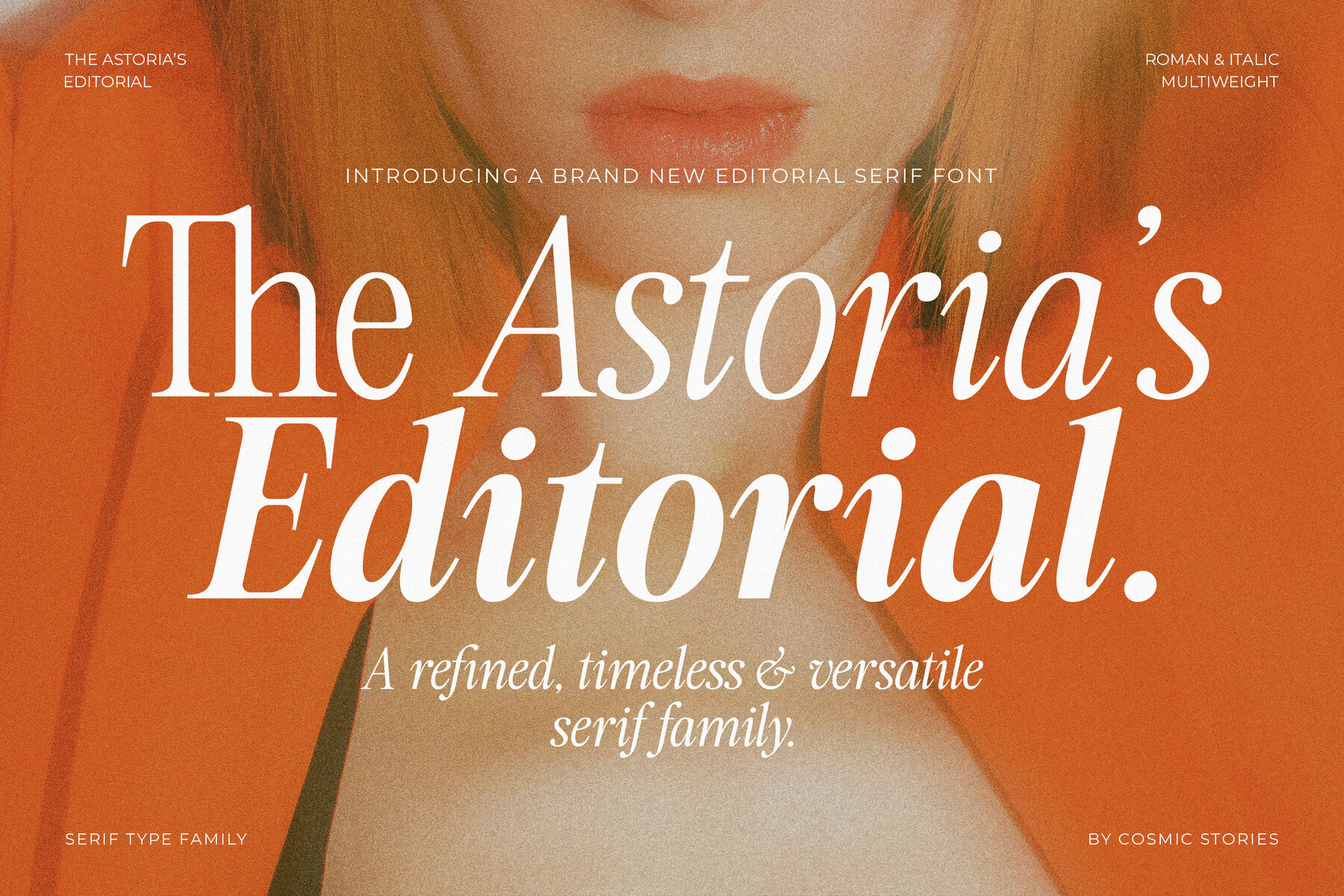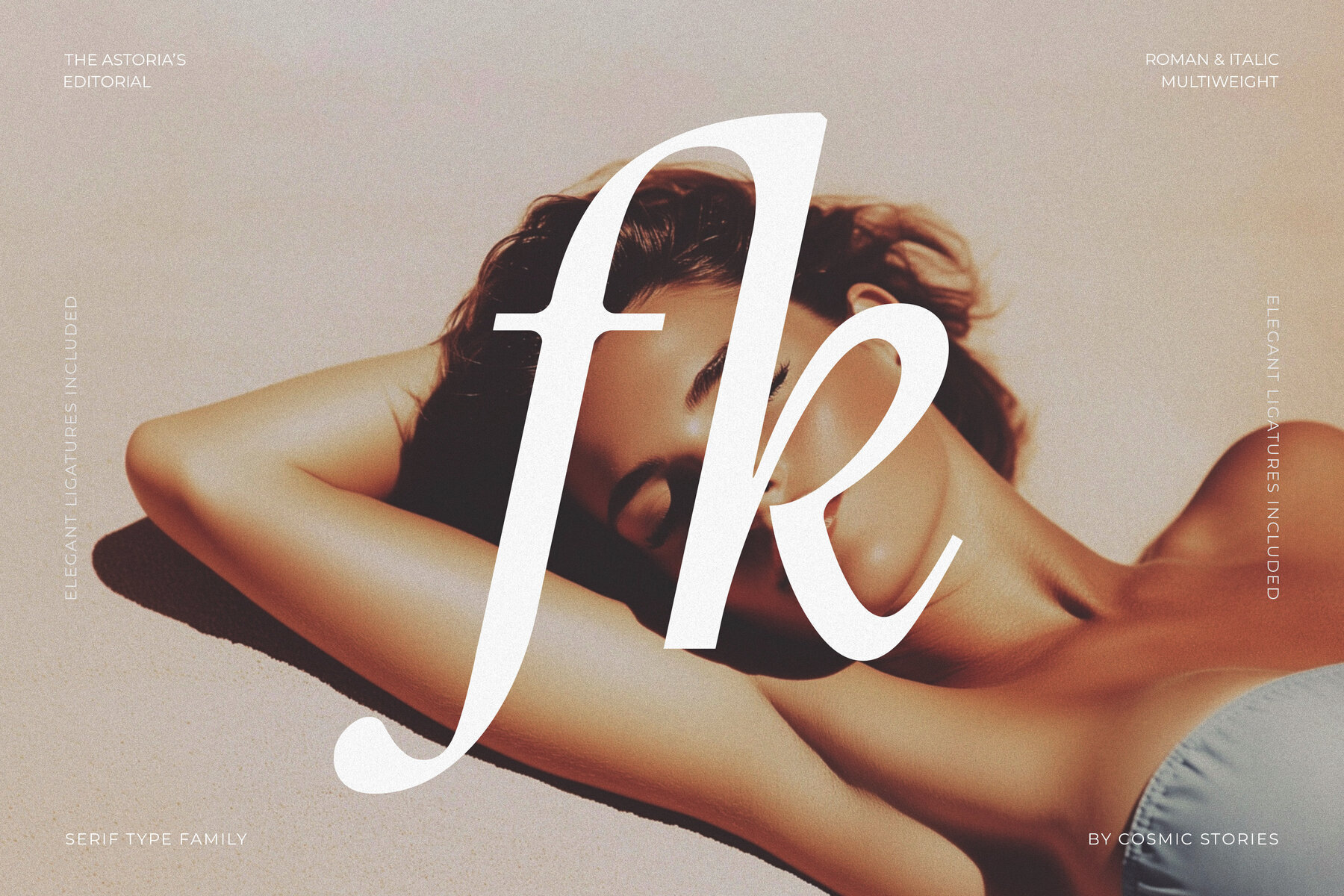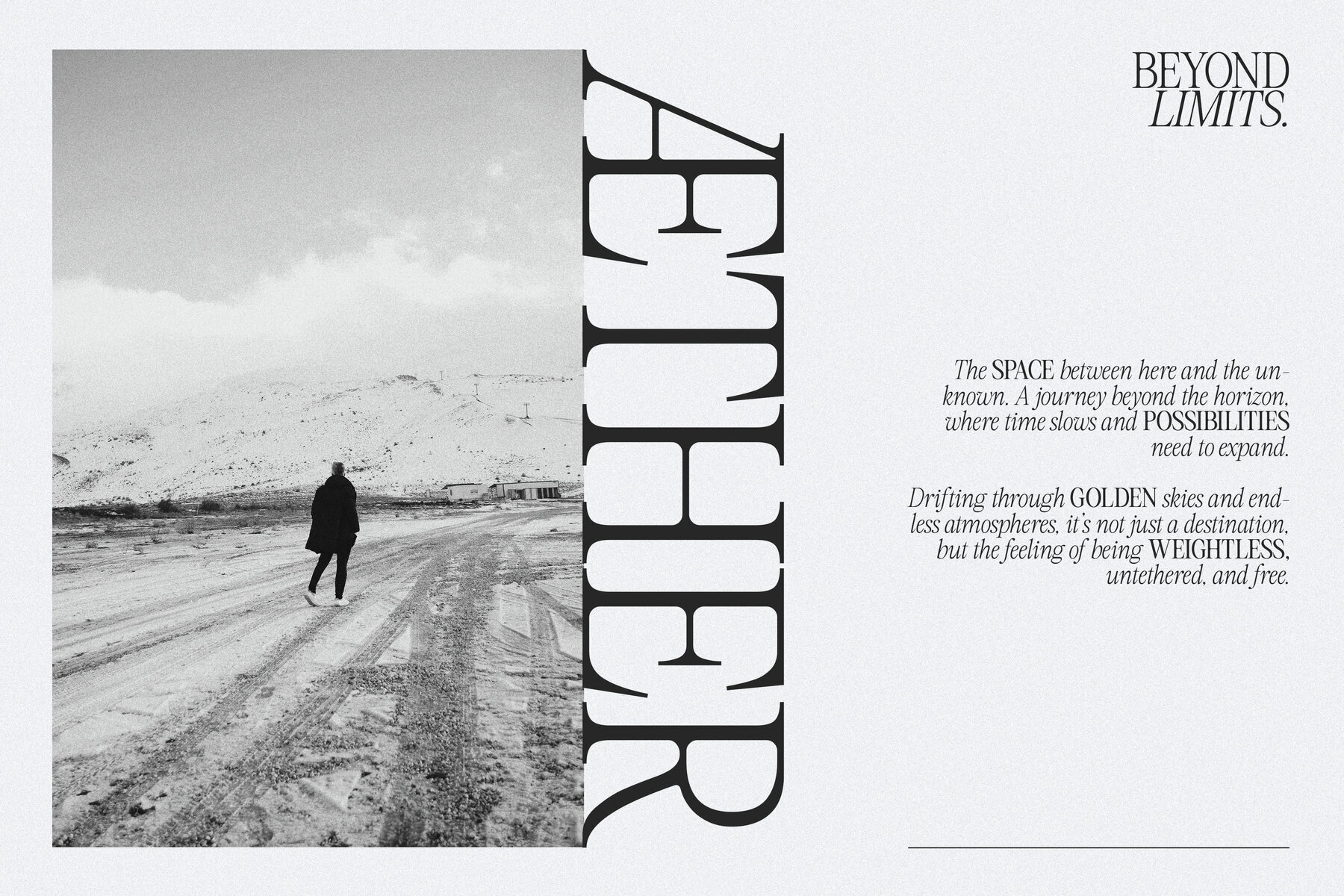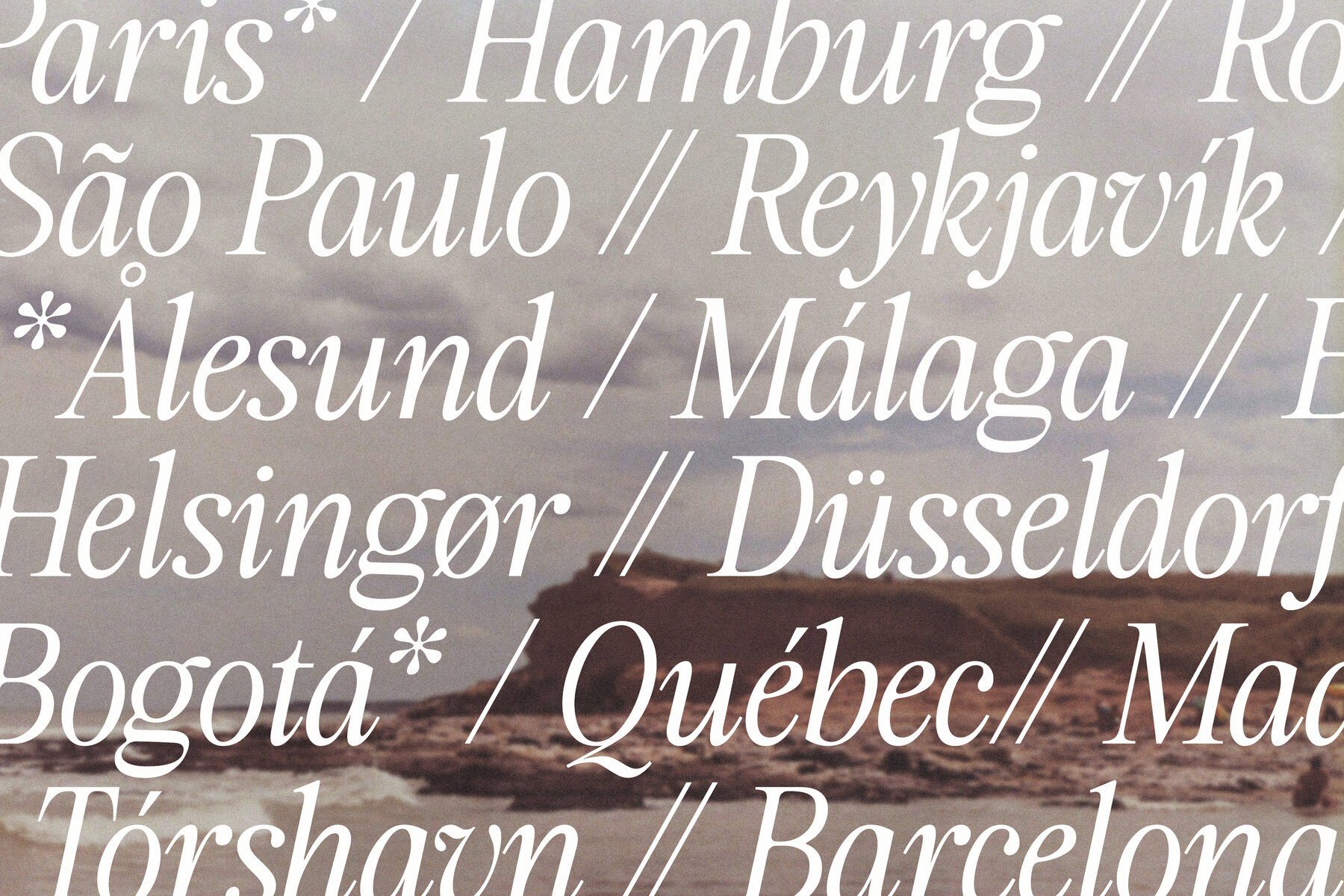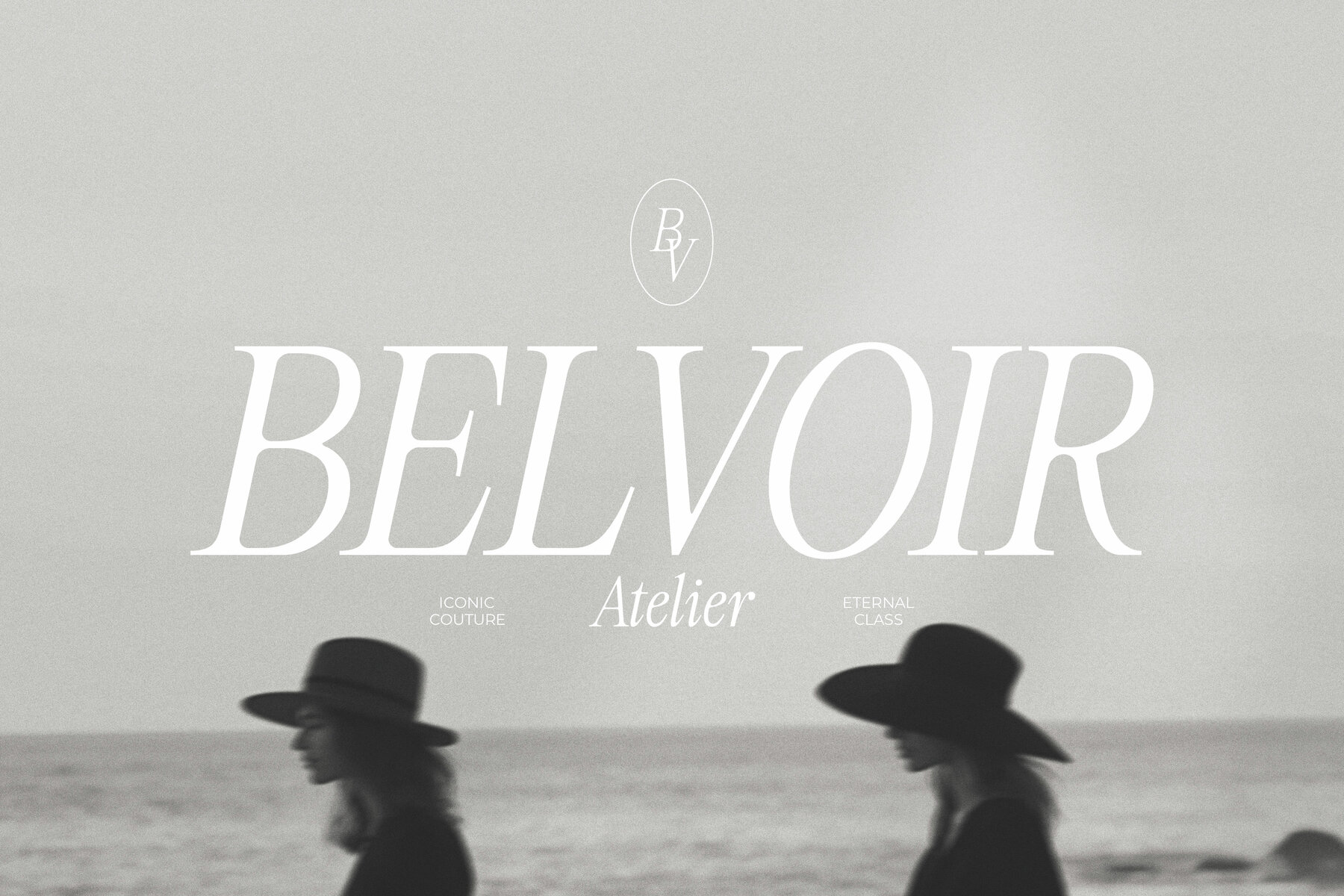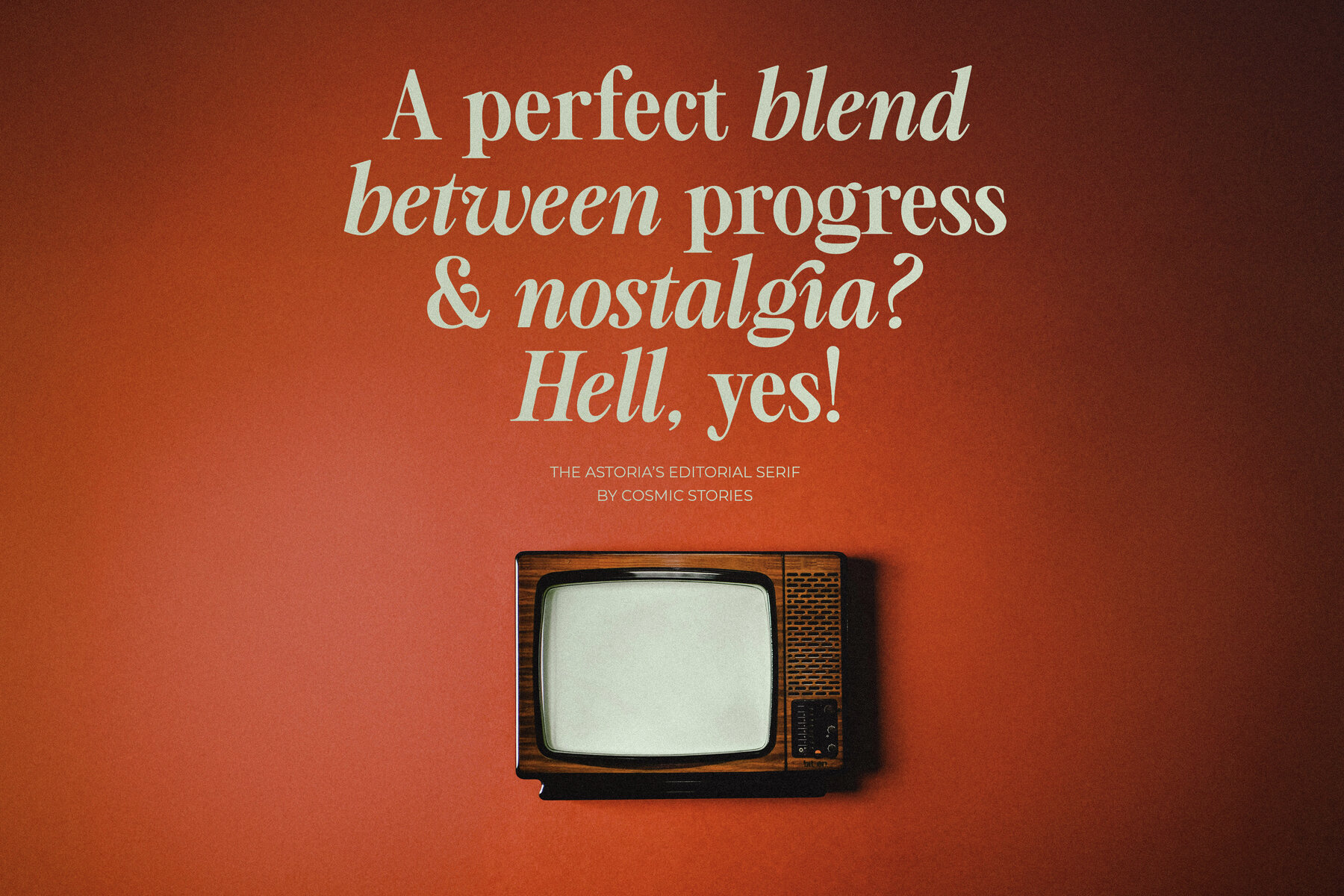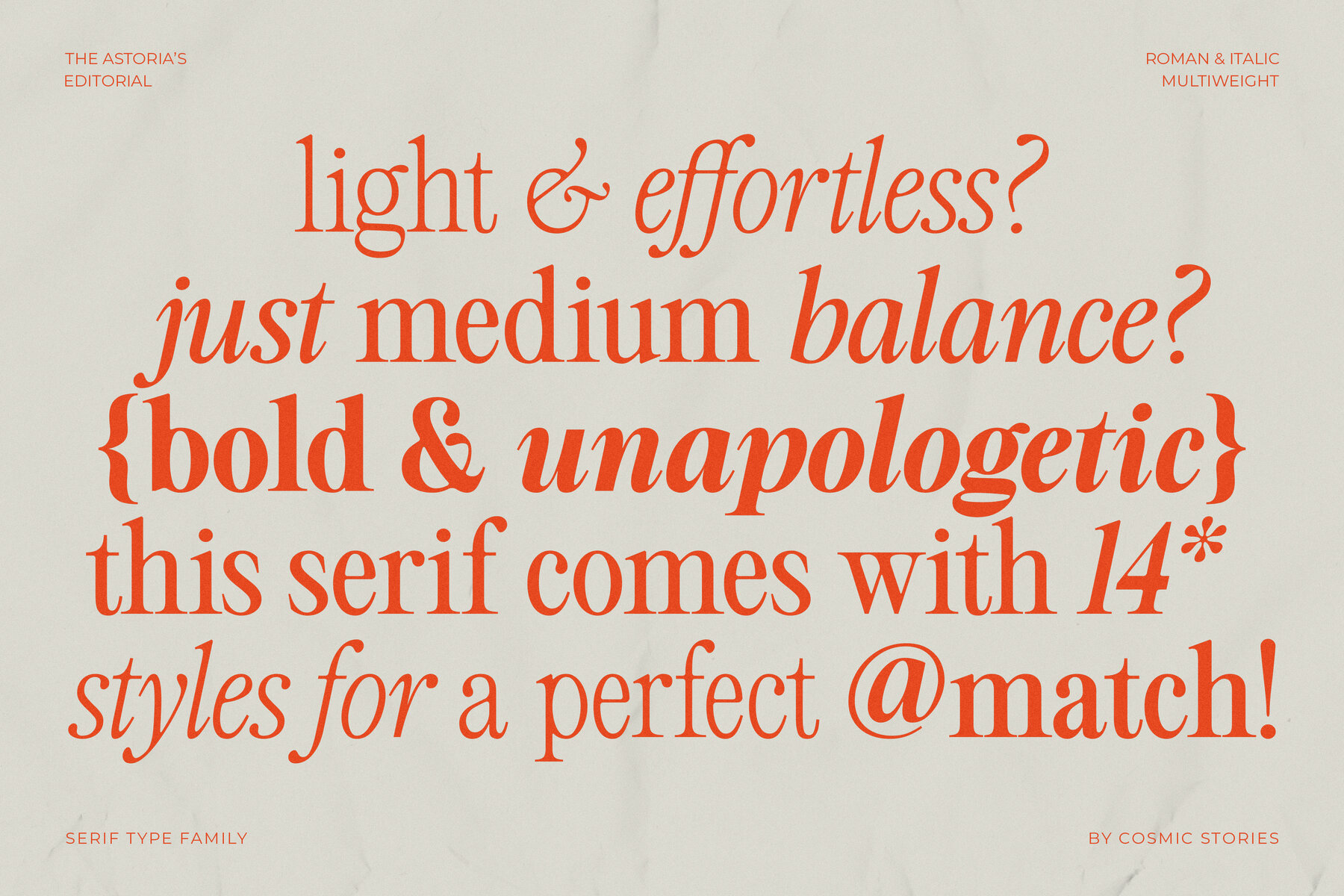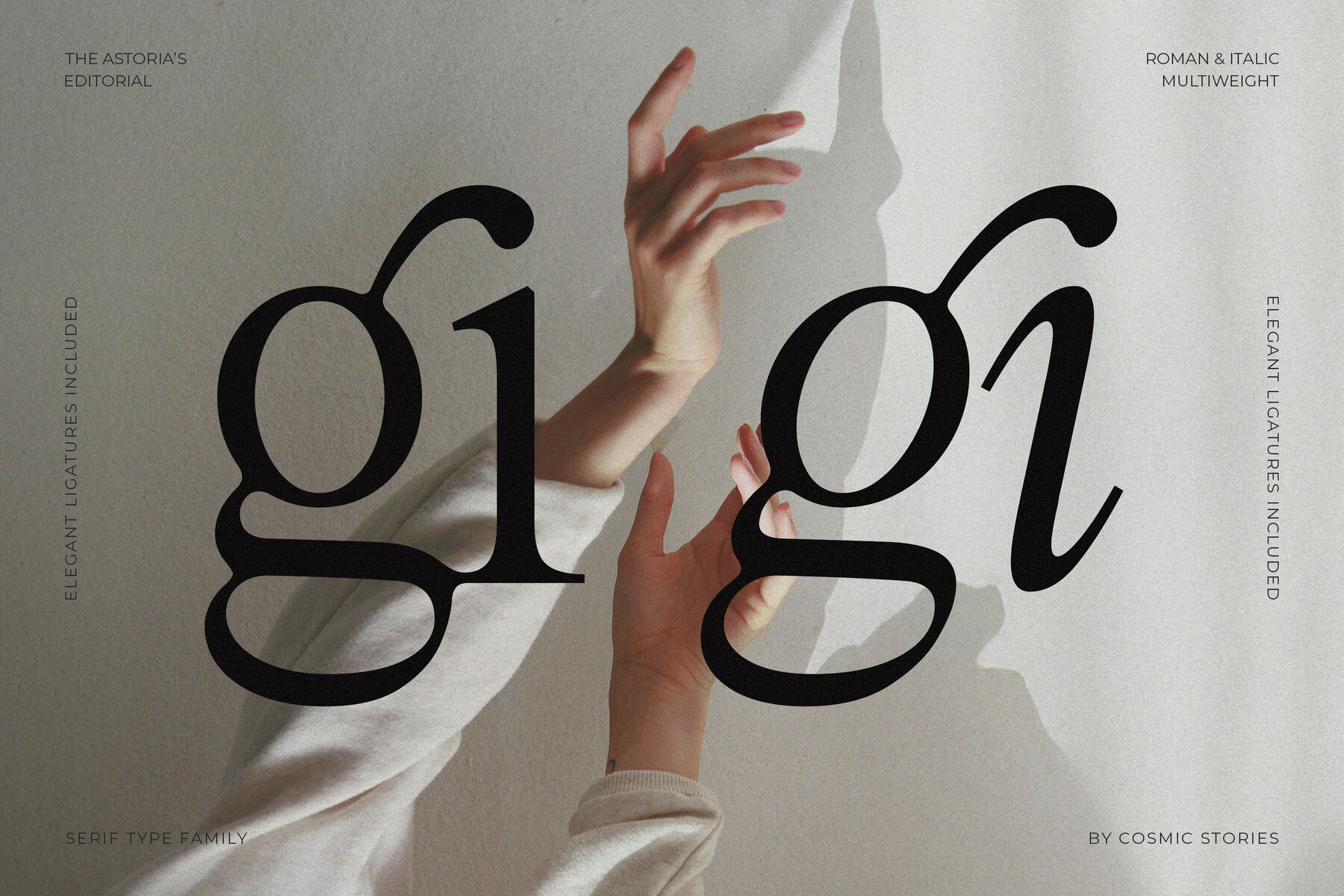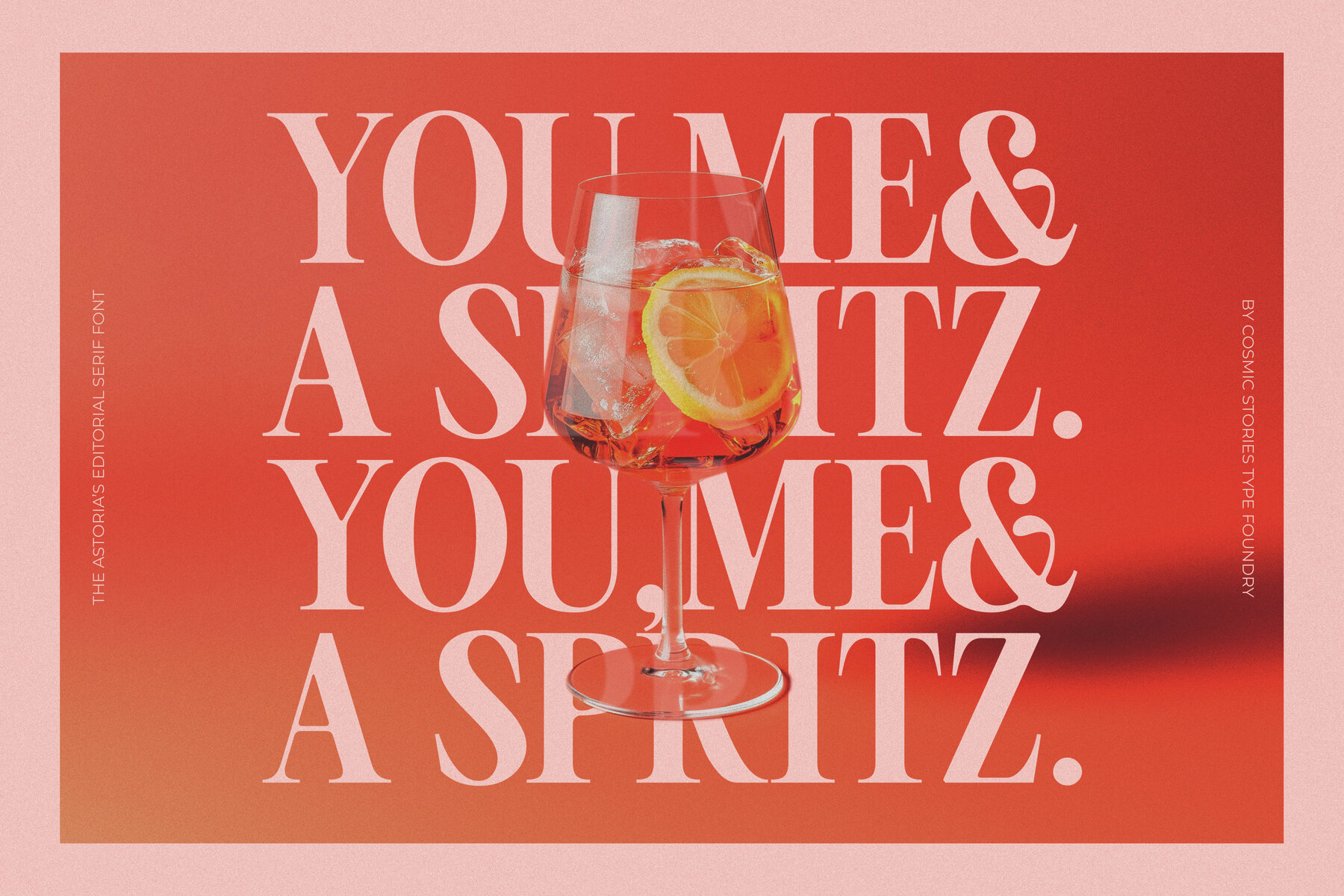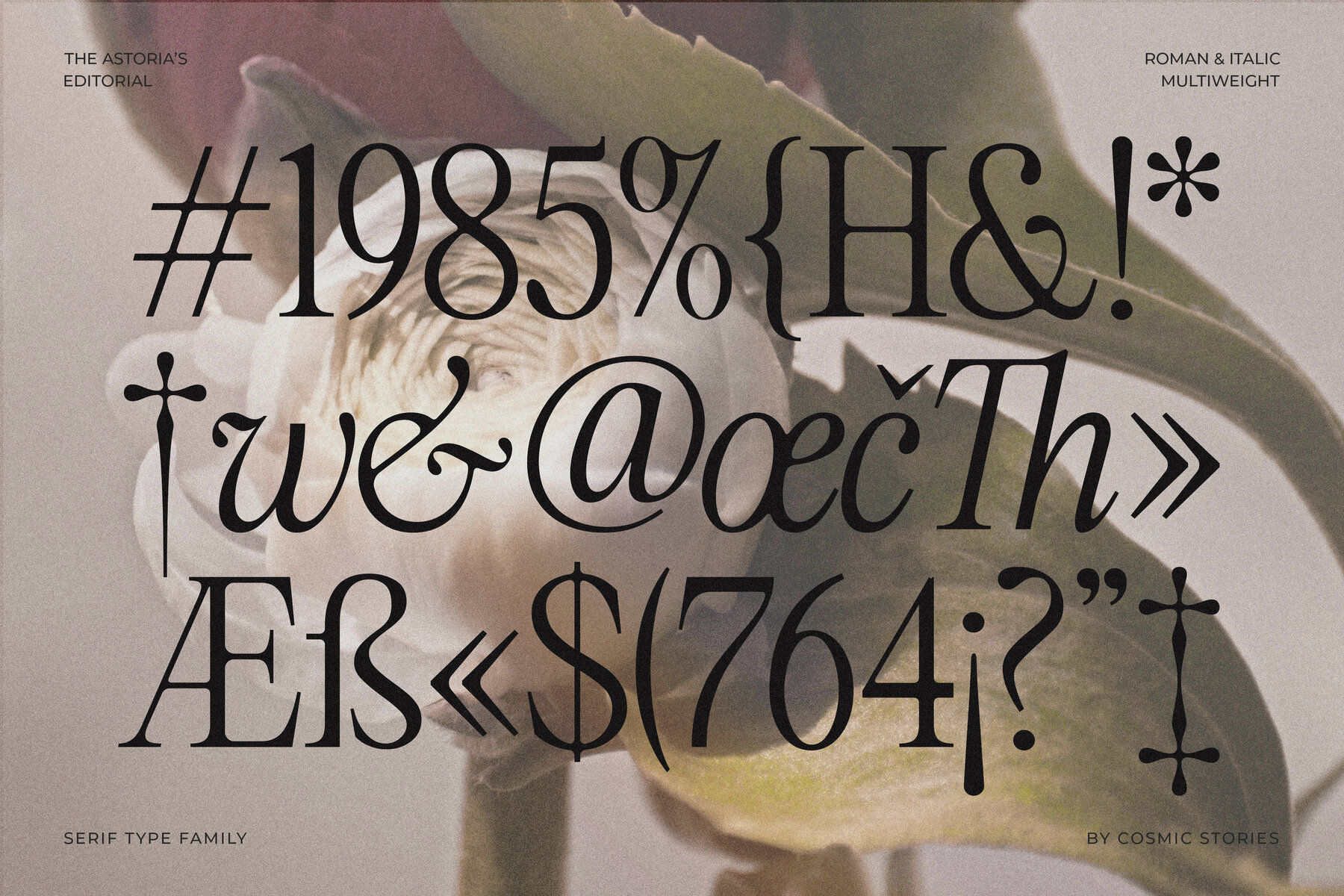
The Astorias Editorial Font
This editorial serif delightfully marries retro charm with modern sensibilities, making it ideal for a wide range of design endeavors. Astoria's Editorial embodies the elegance of vintage advertising and classical publishing, offering a nostalgic yet contemporary aesthetic suitable for any discerning designer. Featuring 14 distinct styles, including seven weights with complementary italics, this typeface seamlessly transitions from editorial layouts to brand identities, luxury packaging, and expressive headlines. Whether crafting a heritage-inspired logo or designing a sleek magazine spread, Astoria's Editorial imparts a bold personality. The font's distinct voice offers classic sophistication with a modern twist. The possibilities are endless; discover which style perfectly complements your design vision.Astoria's Editorial: A Timeless Serif with Modern Flair